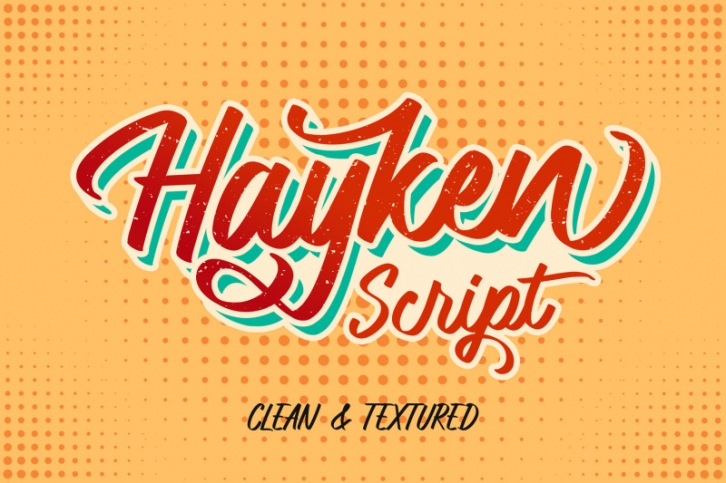
Hayken Script FONT Download
Hayken Script is a brush script font with a dynamic and energetic style. There are two types of styles (clean and textured). It can used for various purposes such as titles, logotypes, t-shirt designs, letterheads, signage’s, labels, newsletters, posters, badges, and every other design which needs an unique, striking font.